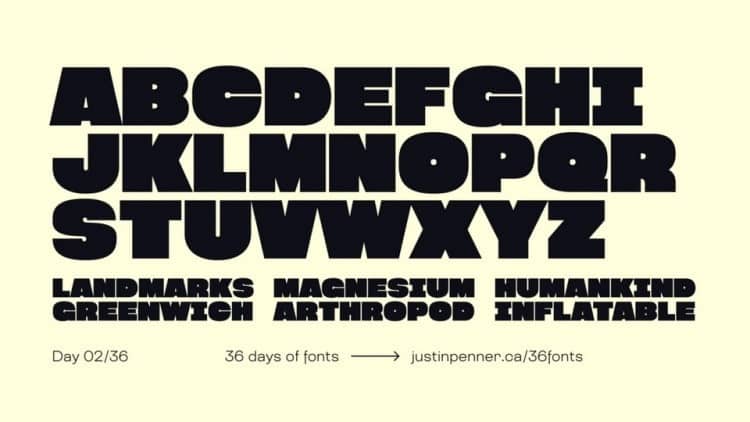
Chonk Display Font is bold and tightly spaced with soft slightly bulge serif giving it just a good amount of groove. It’s designed and shared by Justin Penner. Chonk is an ultra-heavy weight display typeface for creating impact. Works best for impressive headlines, but also great for packaging, branding and poster design.